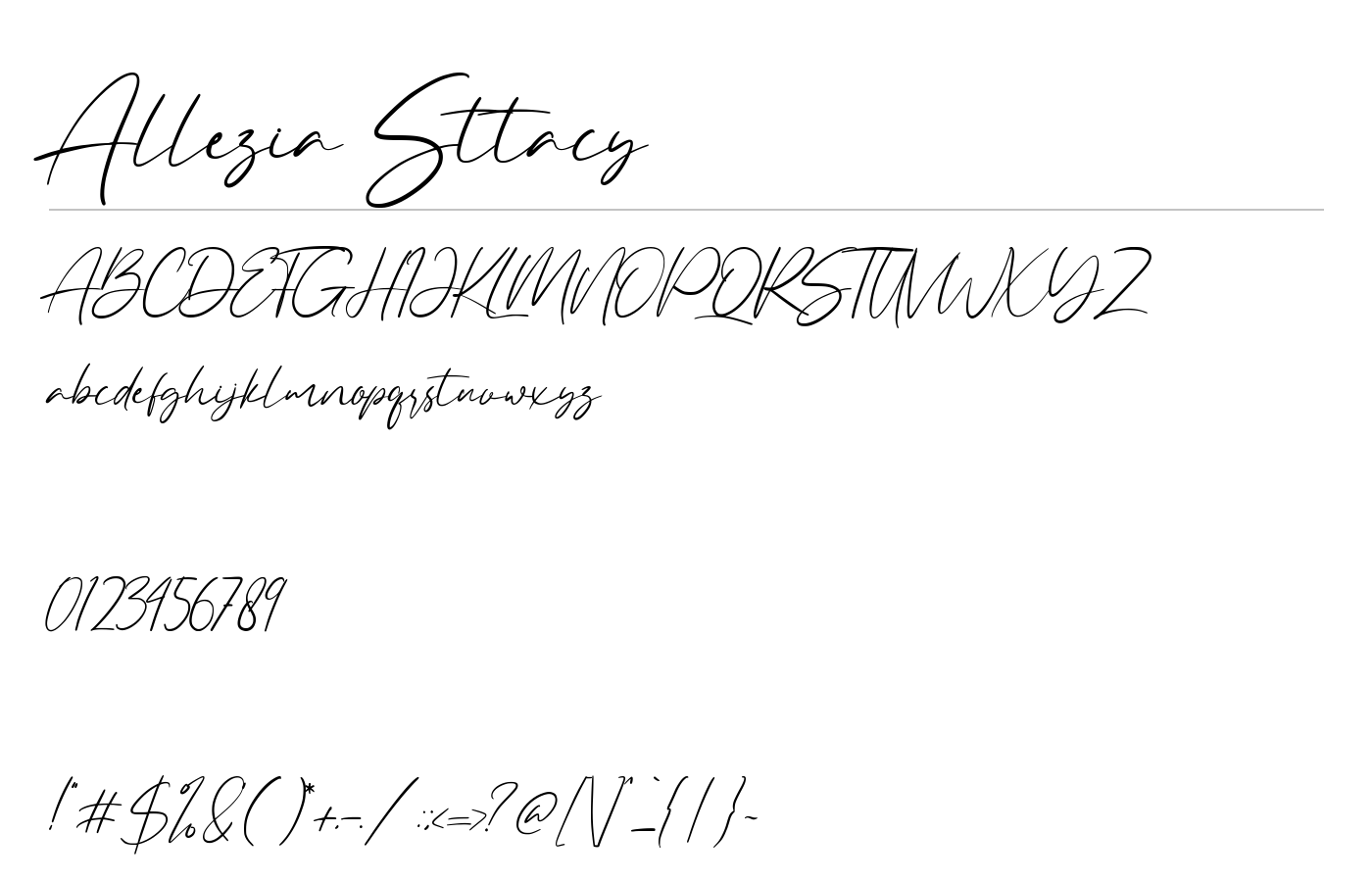
Allezia Sttacy is a delicate and elegant script font characterized by its thin, flowing strokes and a natural, handwritten feel. Its slender, slightly condensed letterforms and graceful connections make it perfect for adding a personal, sophisticated touch to invitations, branding, and stylish editorial projects. This font works well where a refined, feminine, and modern look is desired, especially in fashion, beauty, and luxury contexts.
Allezia Sttacy Font
About Allezia Sttacy Font